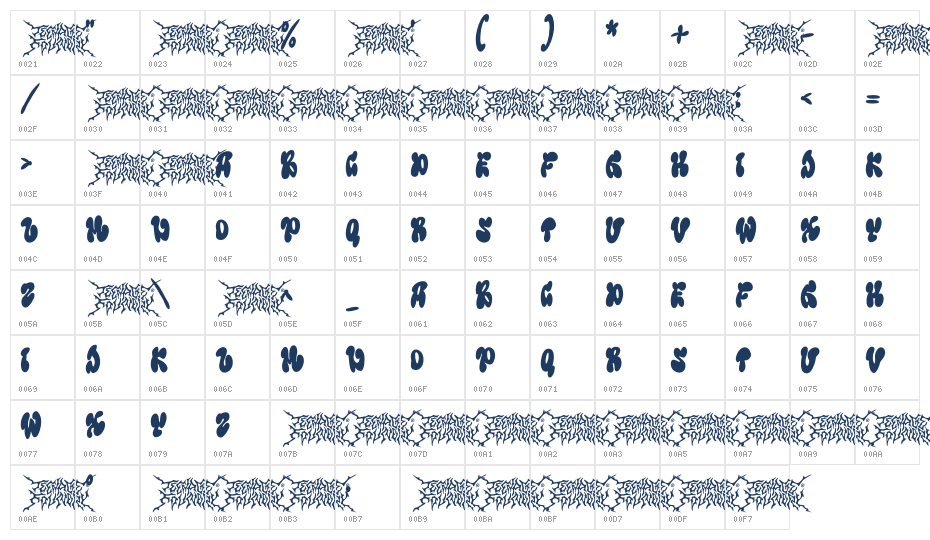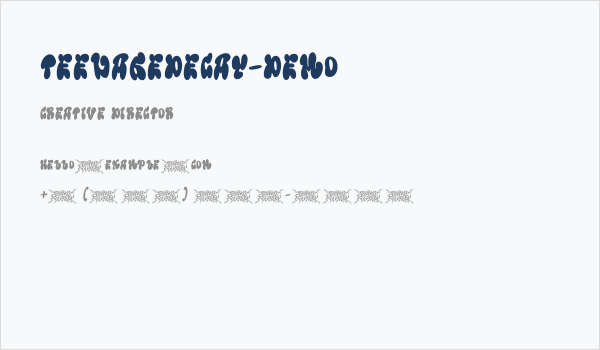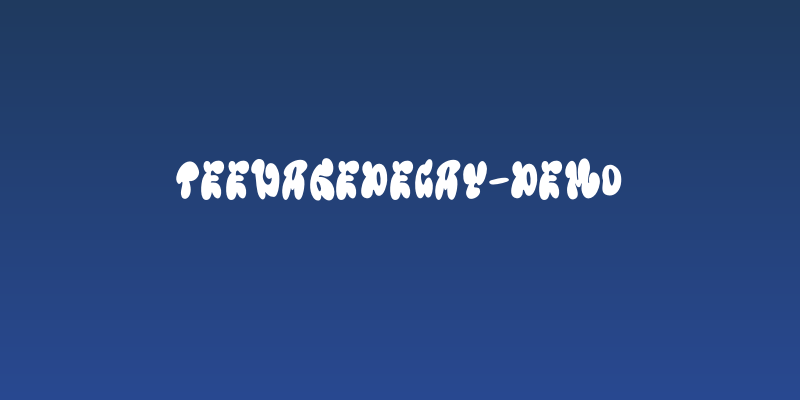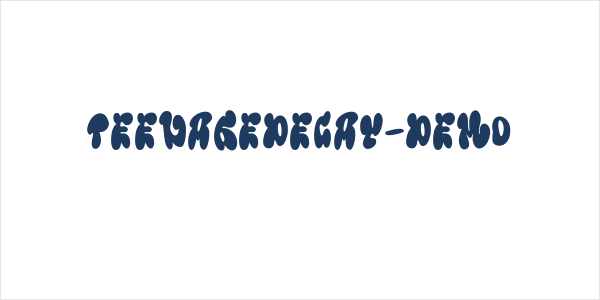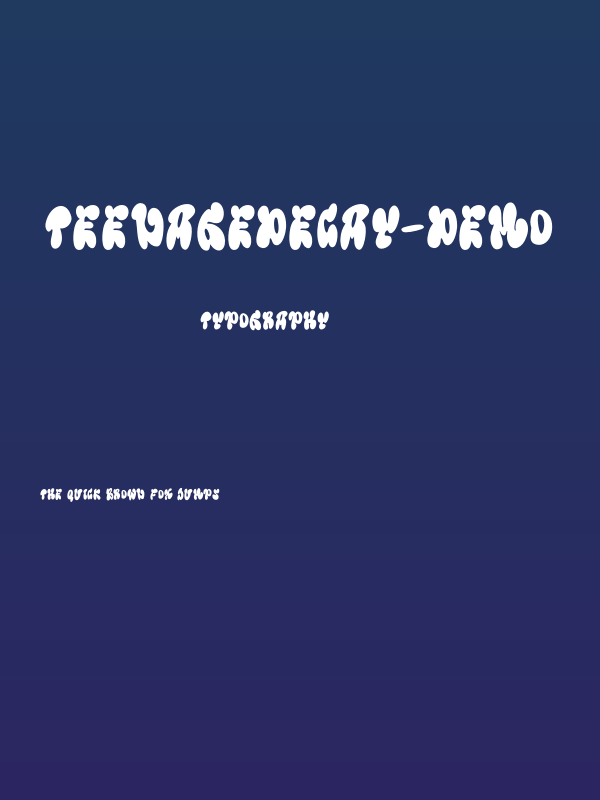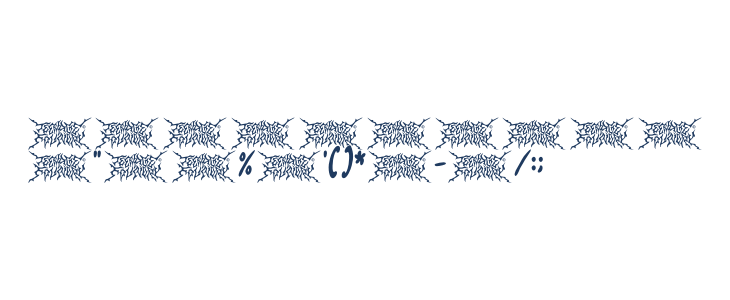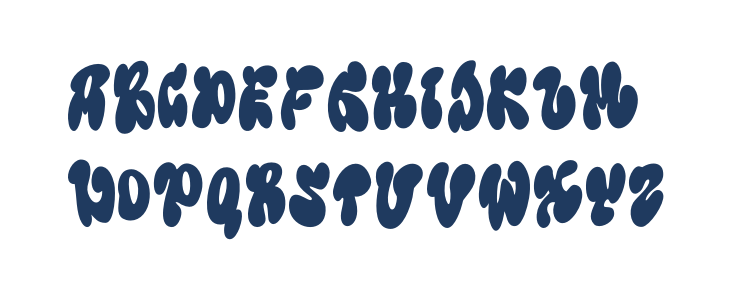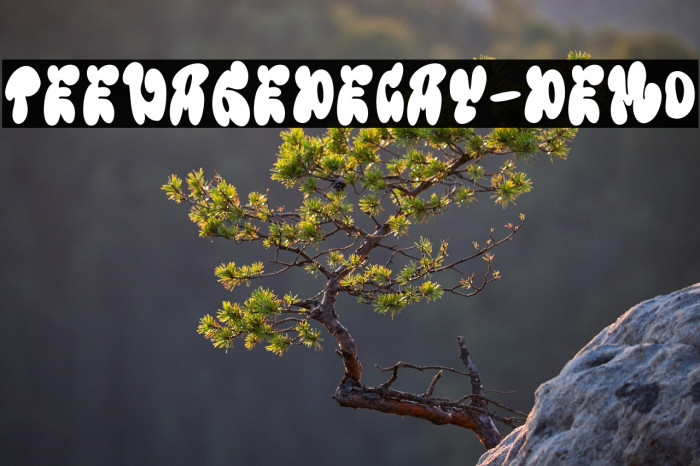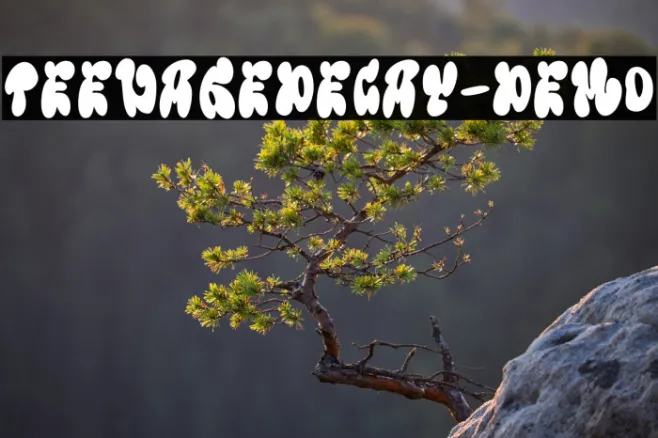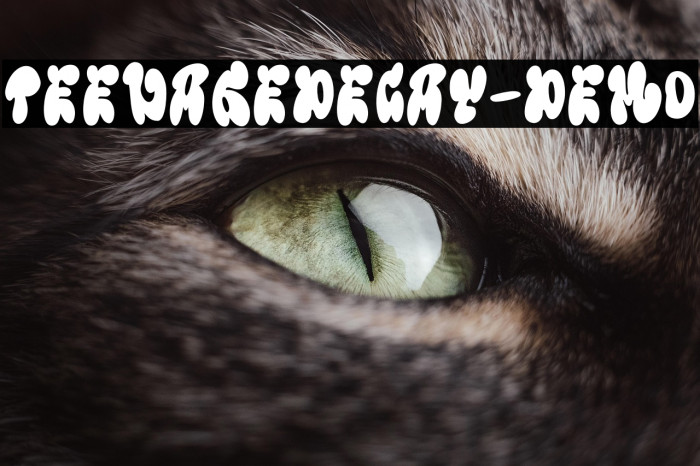
TeenageDecay-Demo Font
TeenageDecay-Demo Description
A bold, rounded, playful display font with a chunky, bubbly appearance.
| Overall Style | Playful, Retro, Bold |
| Use Case | Headlines, Posters, Logos, Children's products |